En Travaux
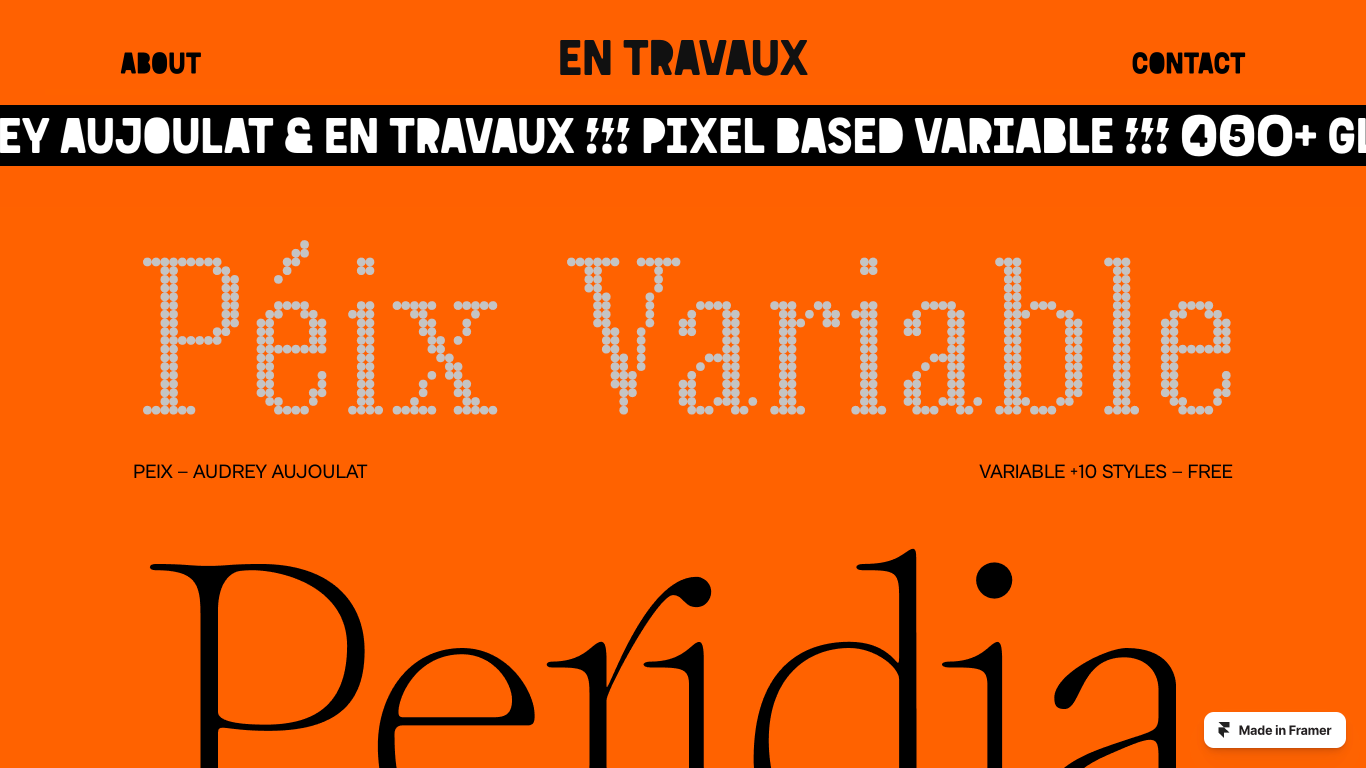
En Travaux is a type foundry offering a range of unique and experimental typefaces. Their collection includes fonts like Péix Variable by Audrey Aujoulat, a pixel-based variable font with over 450 glyphs and more than 10 styles, and Peridia by Alec Vivier-Reynaud, a serif font available in light and regular styles. They also feature Hardanger by Agathe Millet, a pixel font with multiple styles, and Diolce by Yann Valiani, a display italic typeface. Each typeface showcases a distinct design approach, reflecting the foundry's commitment to diverse and innovative typography.